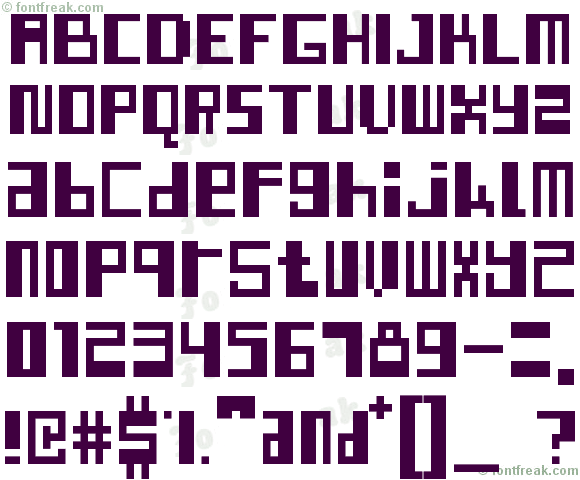
Indo-Malay Confrontation Regular
About Indo-Malay Confrontation Regular
Indo-Malay Confrontation Regular by Adien Gunarta is a striking display font that captures attention with its bold, unique character. This font falls within the decorative category, making it an excellent choice for projects that require a strong visual impact. The design features a consistent stroke weight that lends a sense of stability, while the overall geometric structure adds a modern twist. Its clean lines are complemented by a slight contrast in thickness, enhancing readability while maintaining a stylish appearance. The spacing is well-balanced, ensuring that each letter stands out without feeling overcrowded, making it an ideal choice for various creative applications.
This font is particularly well-suited for use cases such as movie posters, where a strong title font can draw in viewers; restaurant menus, which benefit from its eye-catching appeal; and promotional materials for events, ensuring that text commands attention. Additionally, the Indo-Malay Confrontation Regular font can be effectively utilized in branding for businesses looking to establish a distinctive identity, appealing especially to small business owners and graphic designers who seek to differentiate their work.
The target audience for this font includes content creators, graphic designers, and marketers who require a versatile yet impactful typeface. It resonates well with those aiming for a contemporary aesthetic that stands out in a crowded market.
What sets the Indo-Malay Confrontation Regular font apart is its bold personality combined with its clean and modern design. This font not only serves functional purposes but also adds an artistic touch to any project. For those seeking to make a powerful statement in their designs, the Indo-Malay Confrontation Regular font free download provides an accessible option that embodies creativity and style.